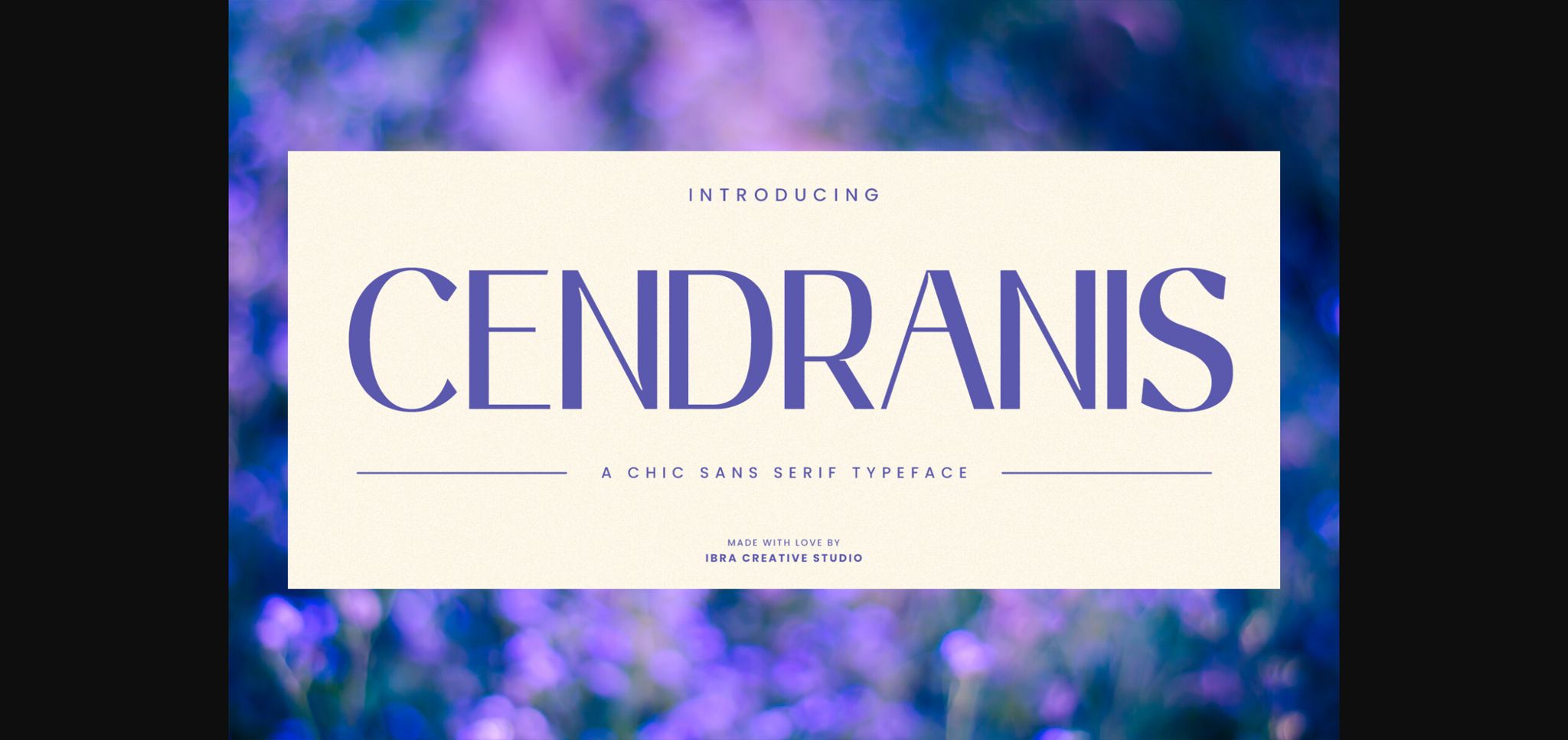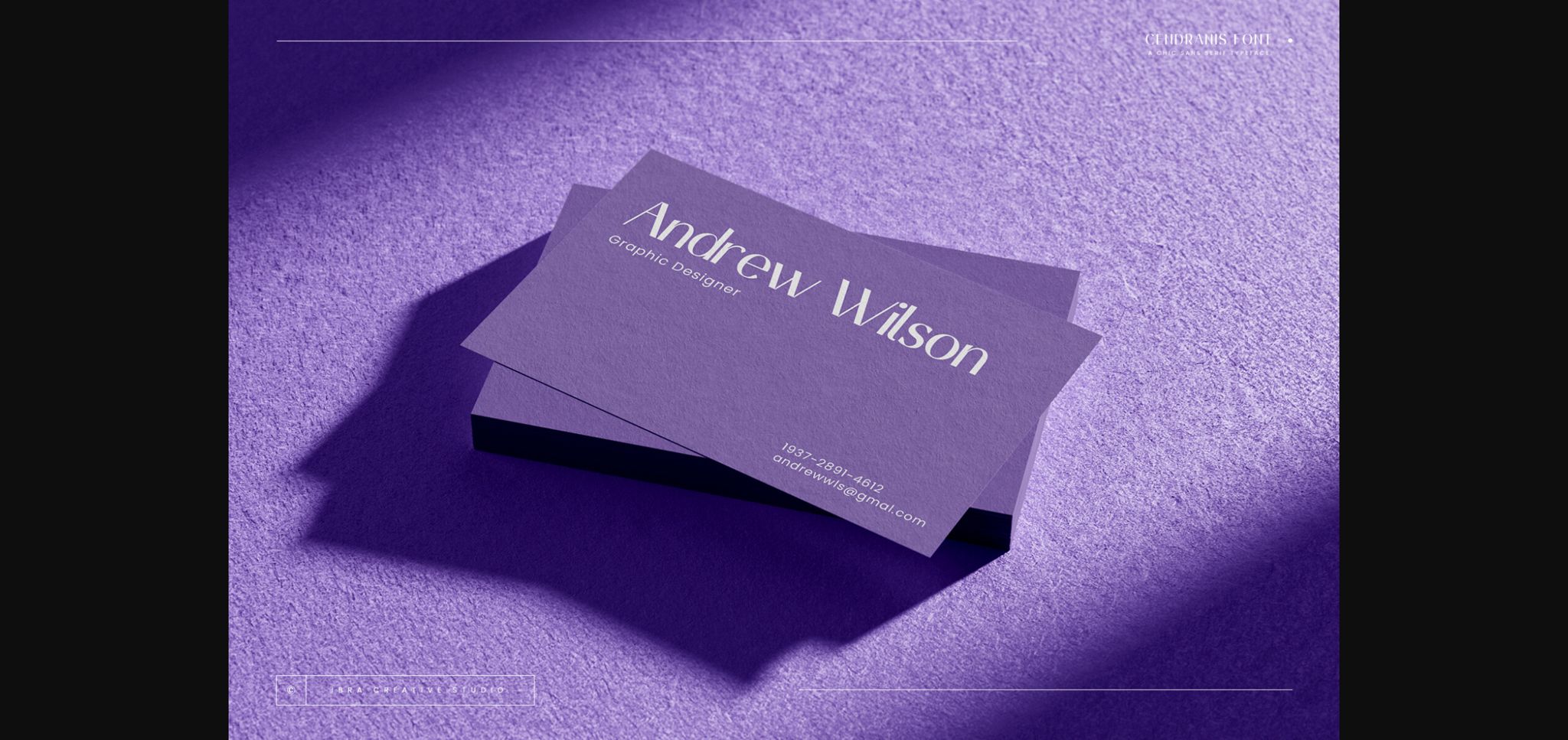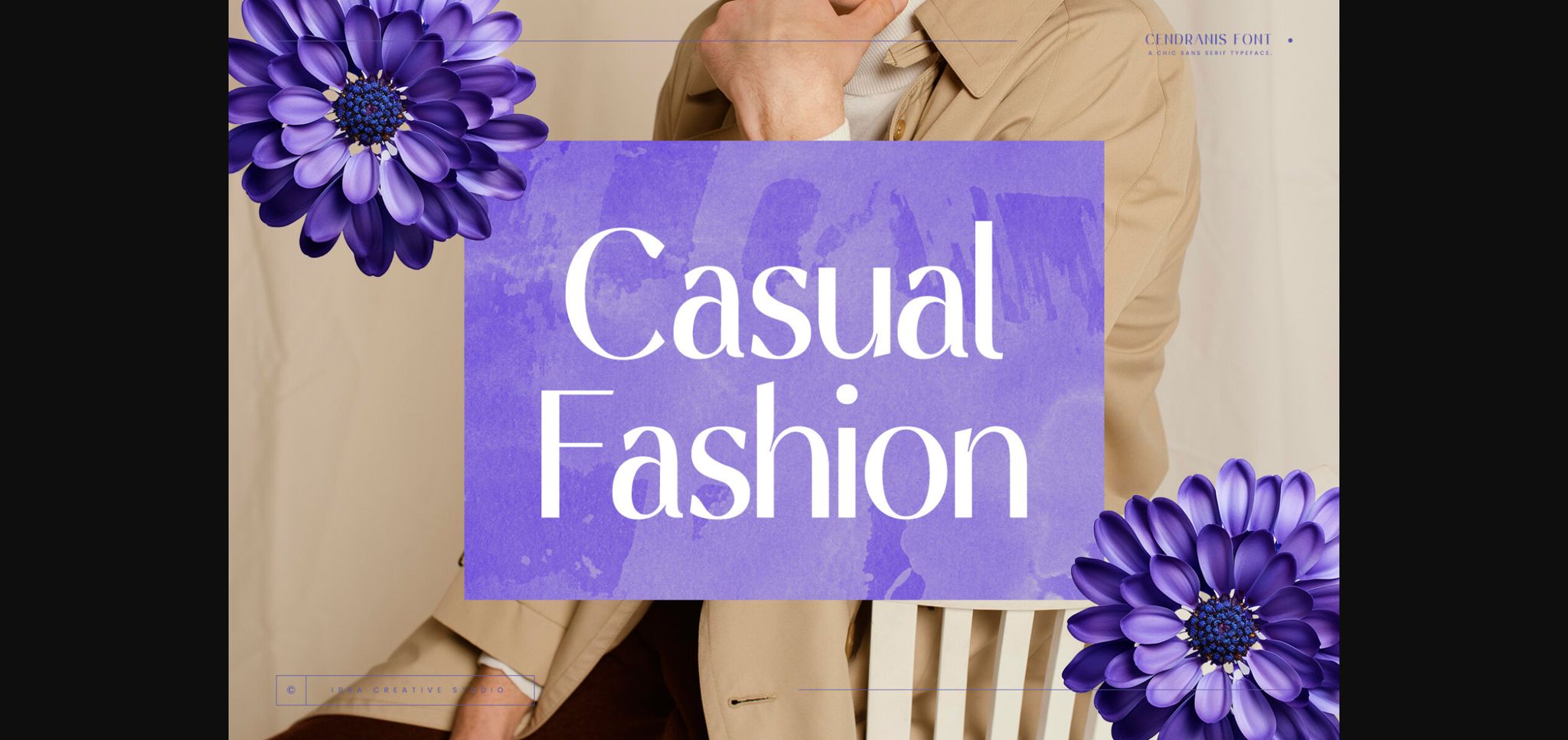
About Cendranis Font
Cendranis, a chic sans-serif typeface, exudes modernity and sophistication with its clean lines and minimalist aesthetic. The simplicity of each letterform is meticulously balanced, creating a harmonious blend of elegance and contemporary style. Whether used for branding, editorial design, or digital applications, Cendranis adds a touch of refinement to any project, embodying a timeless chicness that seamlessly adapts to the evolving design landscape.